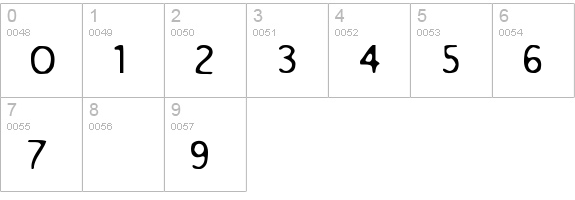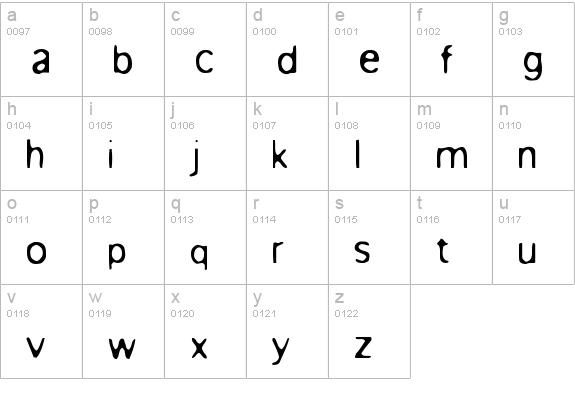
Anorexia Font Details
Anorexia font is a beautifully crafted typeface that exudes elegance and sophistication. Its sleek and modern design makes it perfect for a wide range of creative projects, from branding to editorial design. The sharp lines and unique character shapes give Anorexia font a distinct and eye-catching appearance that will make your text stand out. What sets Anorexia font apart is not just its stunning design, but also the fact that it is available for free download at FontsMarket.com. This means that you can easily access this premium quality font without having to spend a dime. Whether you're a professional designer looking to enhance your projects or a hobbyist looking to add a touch of style to your creations, Anorexia font is the perfect choice. Download it today and elevate your designs with this exceptional typeface.